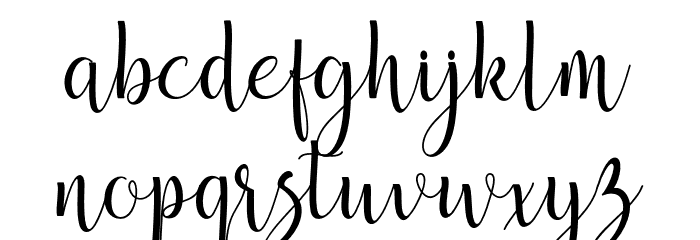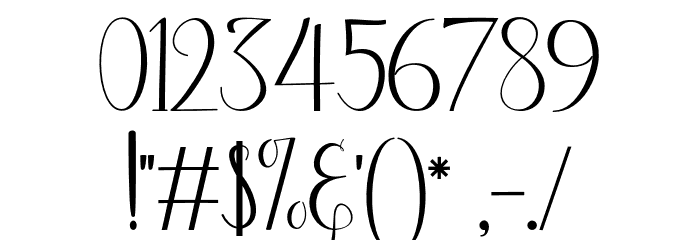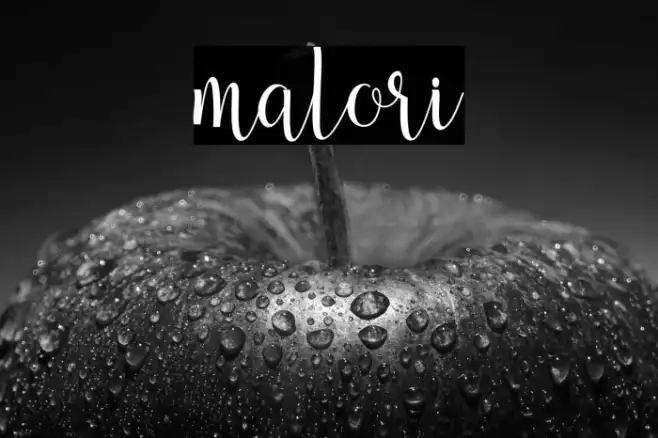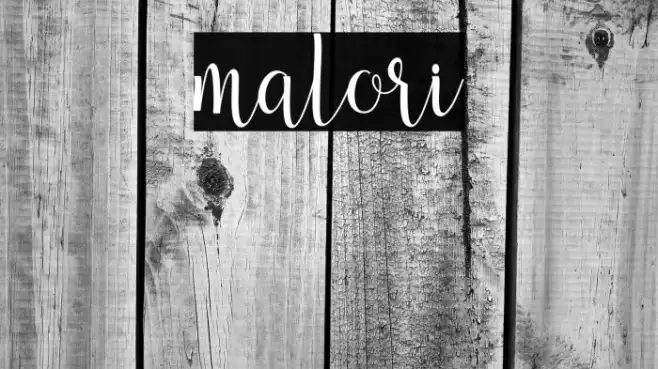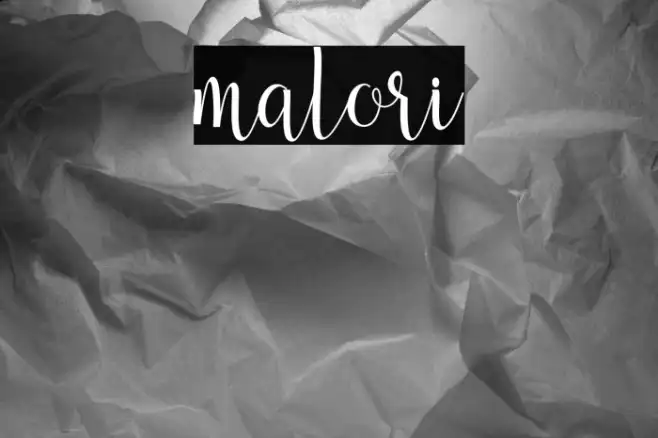
malori Font
This elegant script font features a flowing, cursive style with a modern twist. The uppercase letters exhibit a graceful, sweeping motion, while the lowercase characters maintain a consistent fluidity, making it ideal for creating a sense of movement and sophistication. The numbers are designed with a similar flair, ensuring a cohesive look across all elements. Special characters are thoughtfully integrated, maintaining the font's overall aesthetic. The font's design is both artistic and functional, making it suitable for a variety of creative projects.
A modern, elegant script font with flowing cursive characters.
- Proposed Projects: Ideal for wedding invitations, branding, greeting cards, and elegant logo designs.
- Use Case: Logos, Invitations, Branding